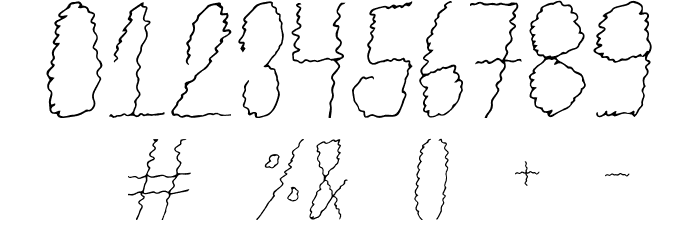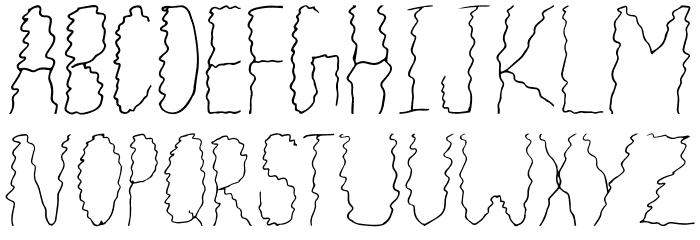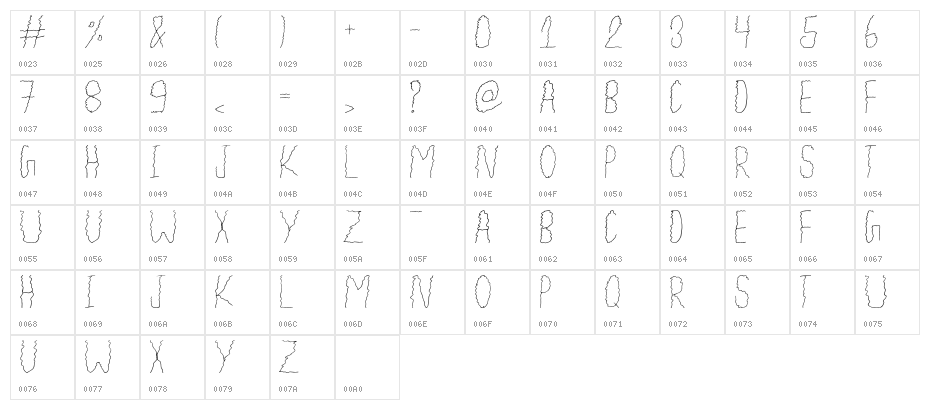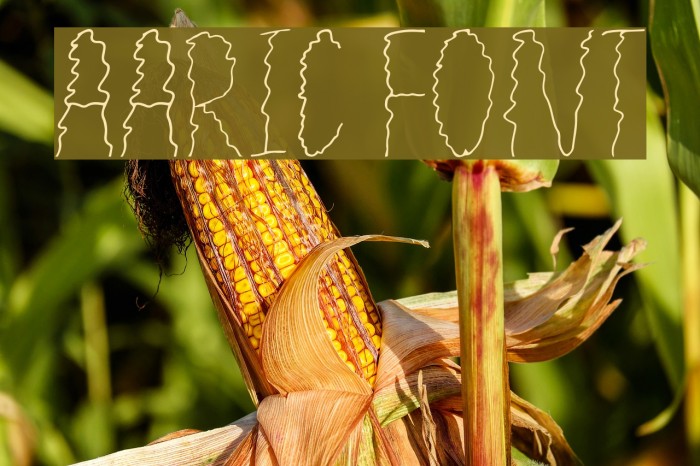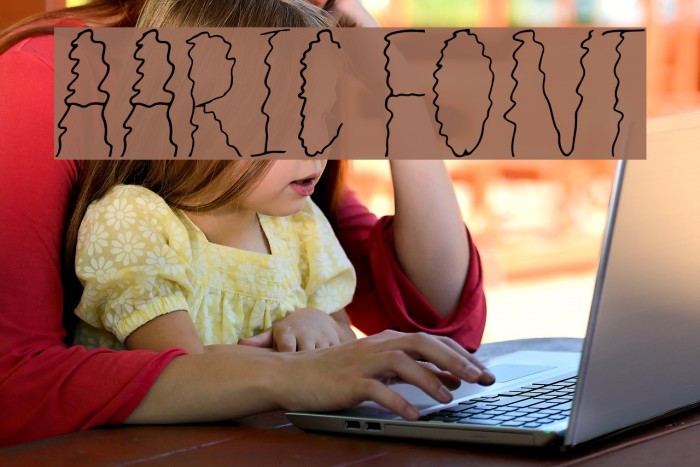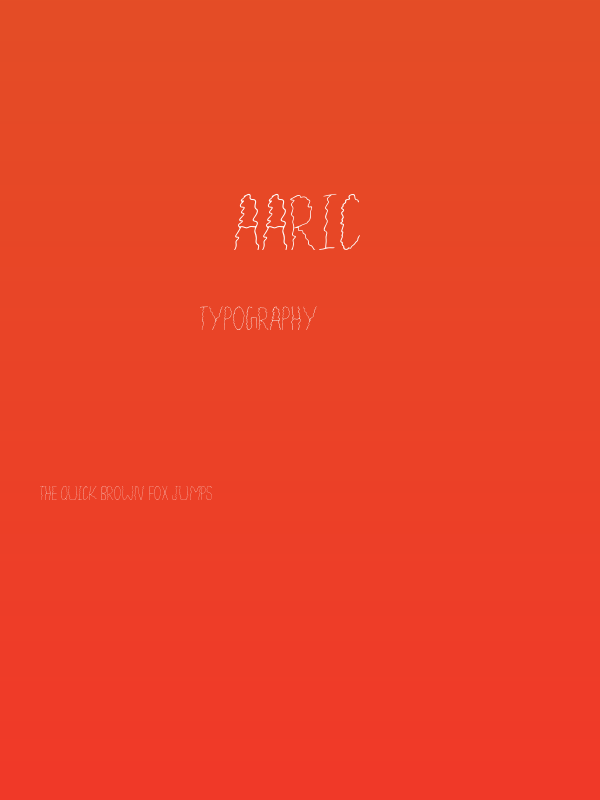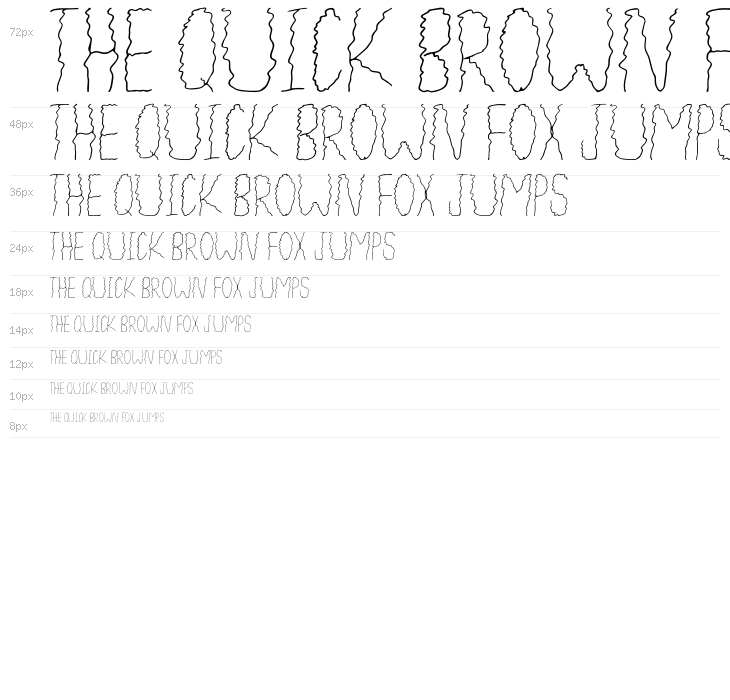
Aaric Font
Aaric Description
This font features a unique, wavy design that gives each character a hand-drawn, whimsical appearance. The lines are irregular and jagged, creating a sense of movement and energy. The uppercase and lowercase letters maintain a consistent style, with each character exhibiting a playful, almost scribbled look. Numbers and special characters follow the same pattern, ensuring a cohesive visual theme. The font's distinctiveness makes it stand out, ideal for projects that require a touch of creativity and individuality.
| Overall Style | Whimsical, Artistic |
| Use Case | Logos, Posters, Creative Titles |
| Proposed Projects | Perfect for creative projects such as children's book covers, playful posters, or artistic branding materials. |